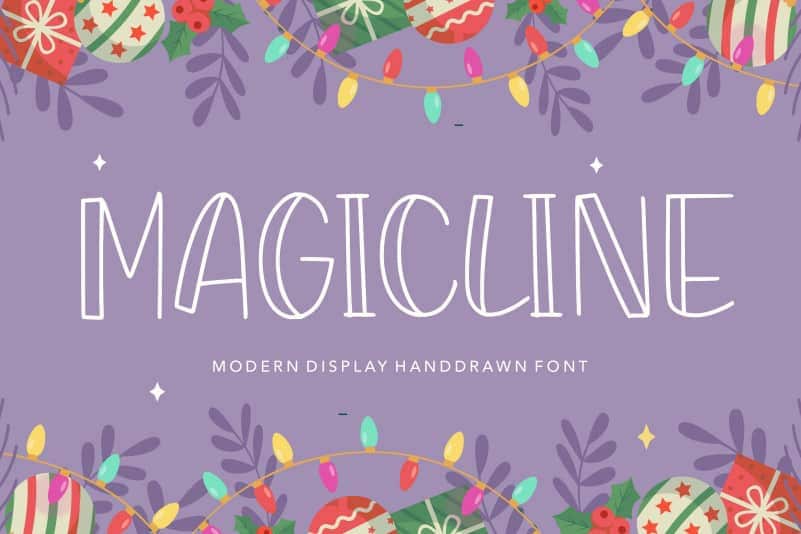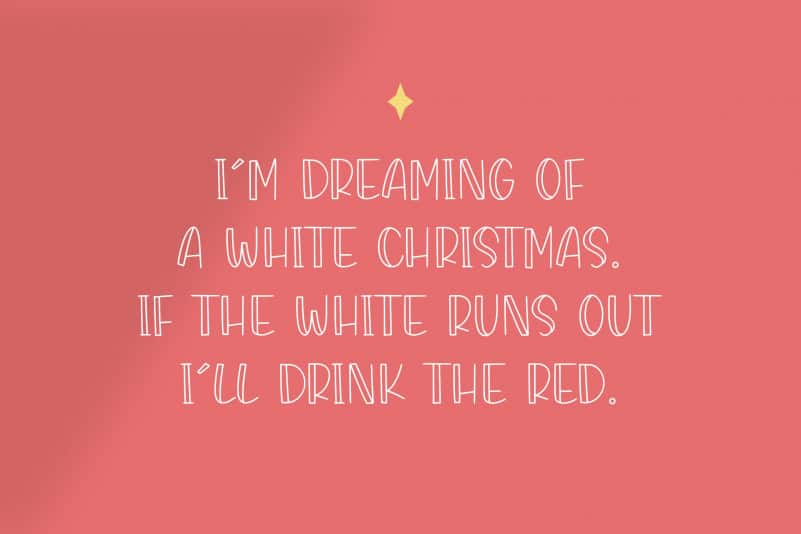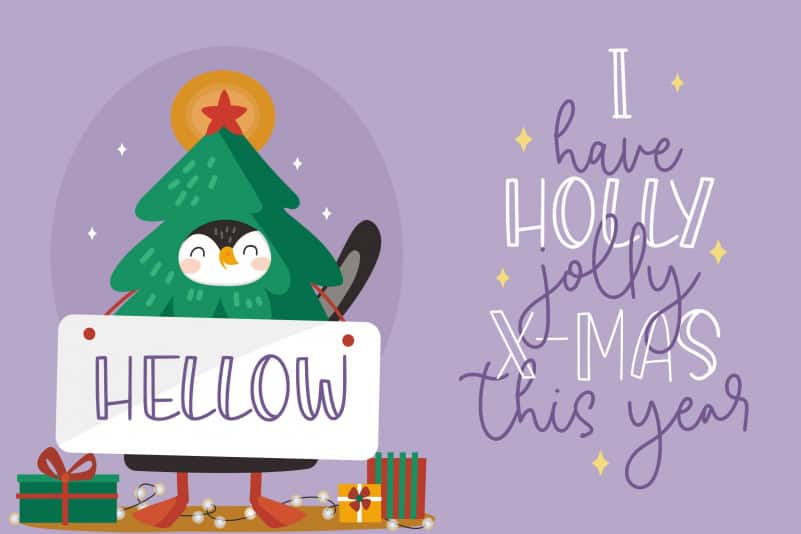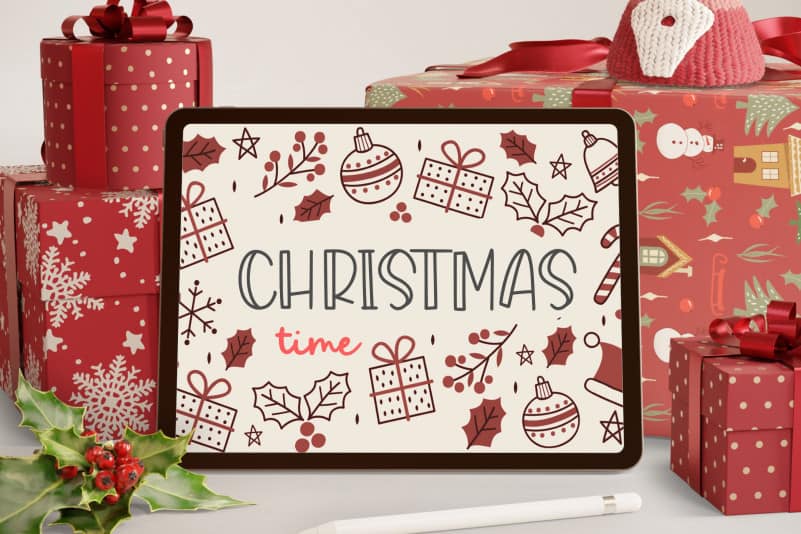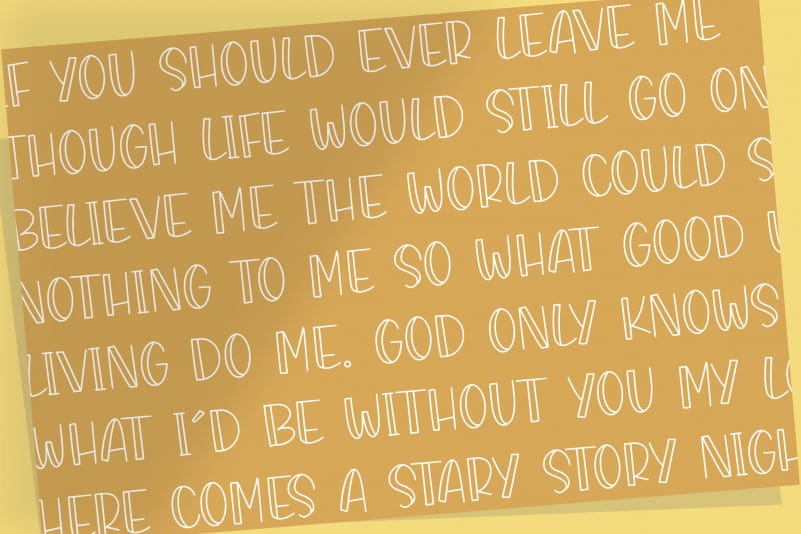
MAGICLINE Modern Display Handdrawn Font
Proudly Present, MAGICLINE Modern Display Handdrawn Font.
MAGICLINE is a Modern Display Handdrawn Font.
This typeface is perfect for product packaging, branding project, megazine, social media, wedding, or just used to express words above the background.